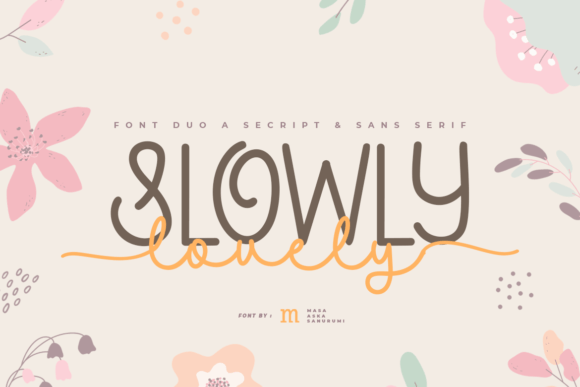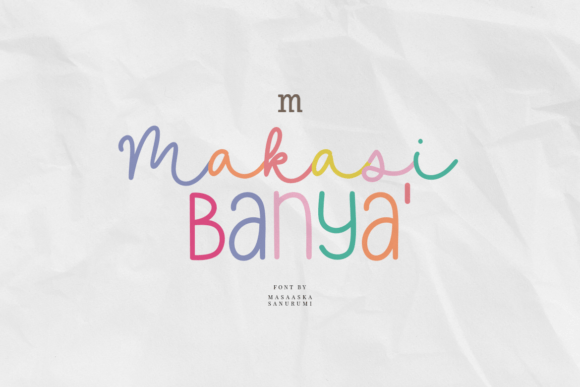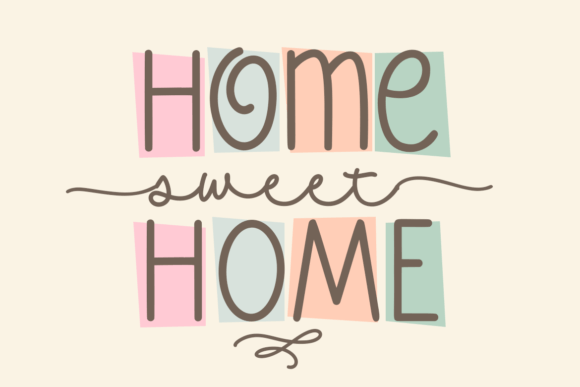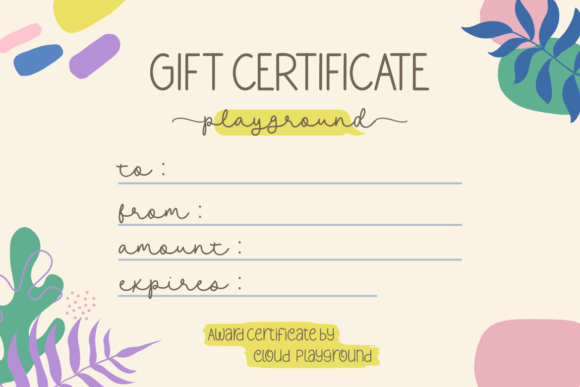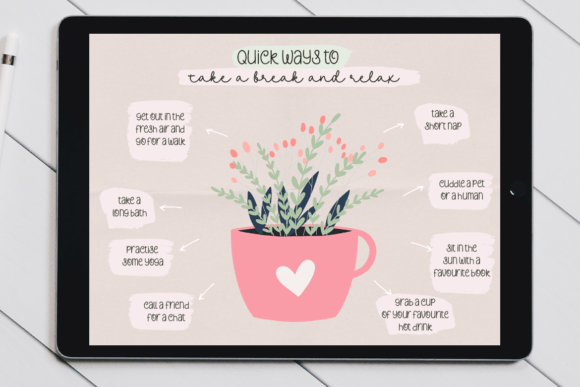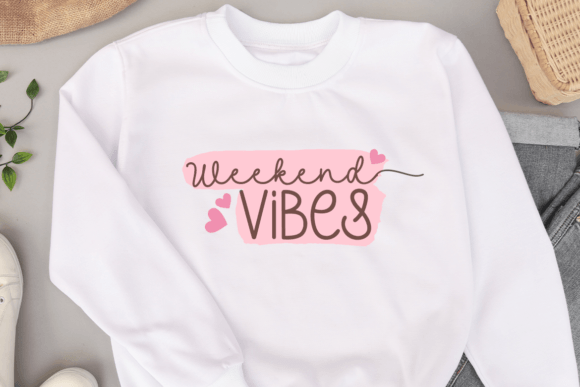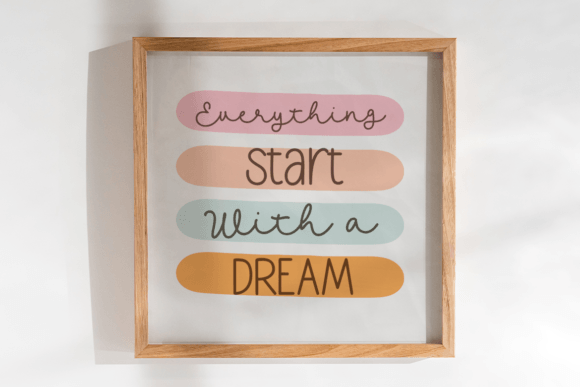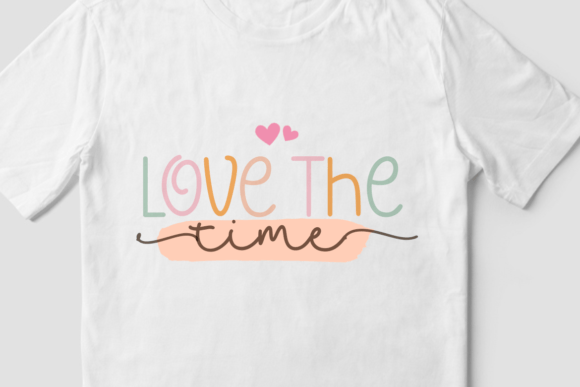
Slowly Lovely Duo Font
About Slowly Lovely Duo Font
Slowly Lovely is a perfect font duo, defined by simplicity and style. Whether you’re looking for fonts for Instagram or calligraphy scripts for DIY projects, this font will turn any creative idea into a true piece of art!